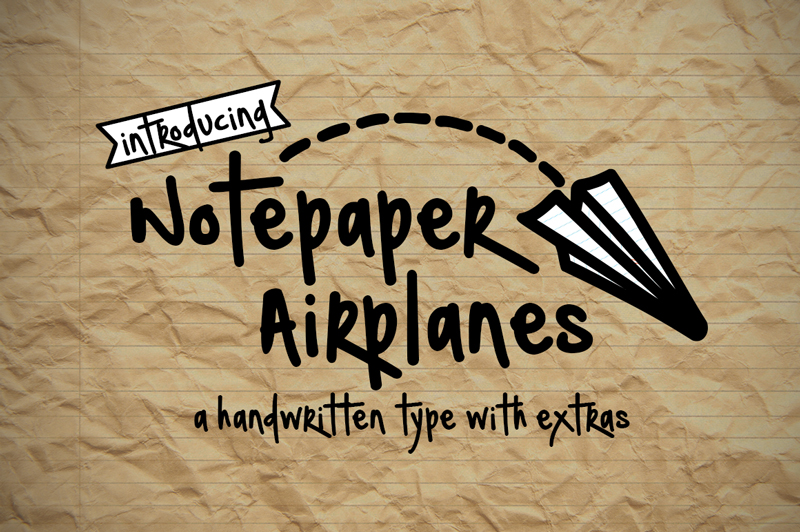
Font name: | Notepaper Airplanes |
Author: | Brittney Murphy Design |
Cool handwritten font, great for passing notes! Comes in two weights- regular and light. Free for personal and non-profit use. For commercial use, please purchase a license: http://brittneymurphydesign.com/downloads/notepaper-airplanes/ |